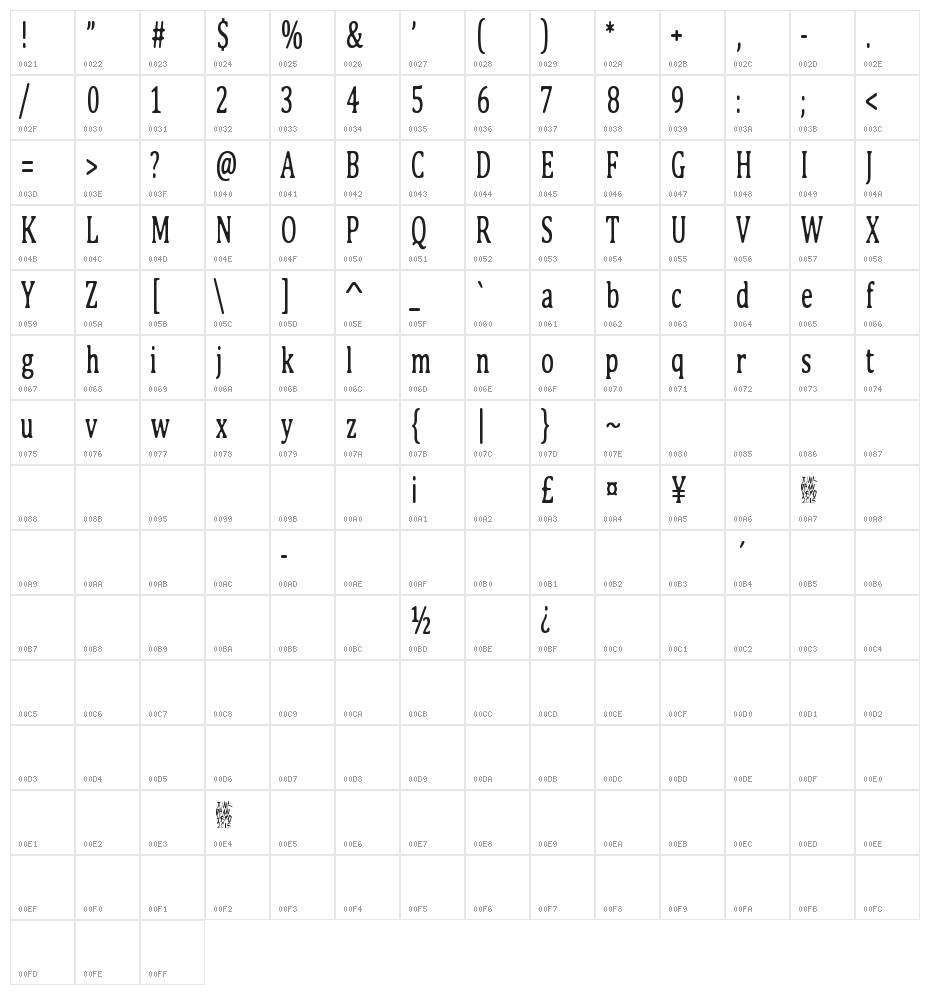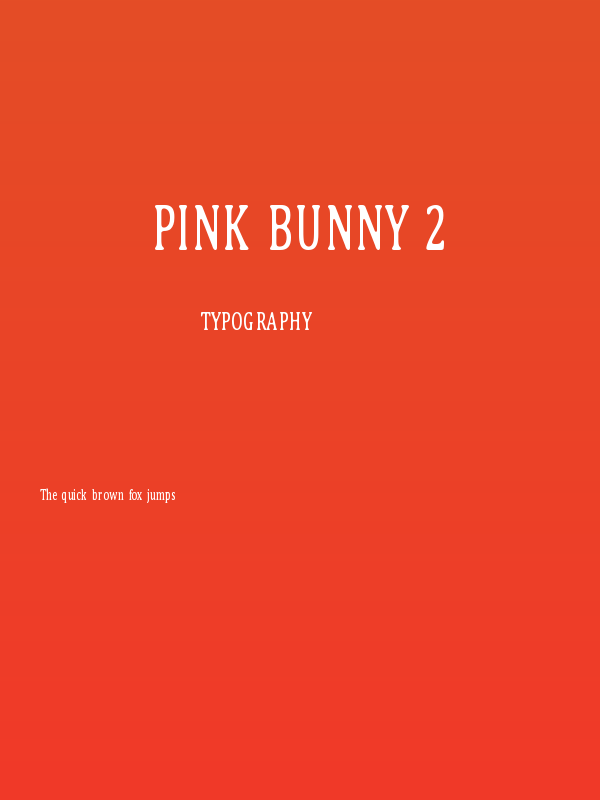
Pink Bunny 2 Font
Pink Bunny 2 Description
This font features a classic serif style with slightly rounded edges, giving it a friendly and approachable appearance. The characters are well-proportioned, with a moderate contrast between thick and thin strokes, enhancing readability. The serifs are prominent yet not overpowering, adding a touch of elegance and tradition. The numerals are distinct and clear, making them suitable for both text and display purposes. Special characters are well-integrated, maintaining the overall aesthetic of the font. The design is versatile, suitable for a variety of applications from print to digital media.
| Proposed Projects | Ideal for book covers, editorial design, branding, and formal invitations. |